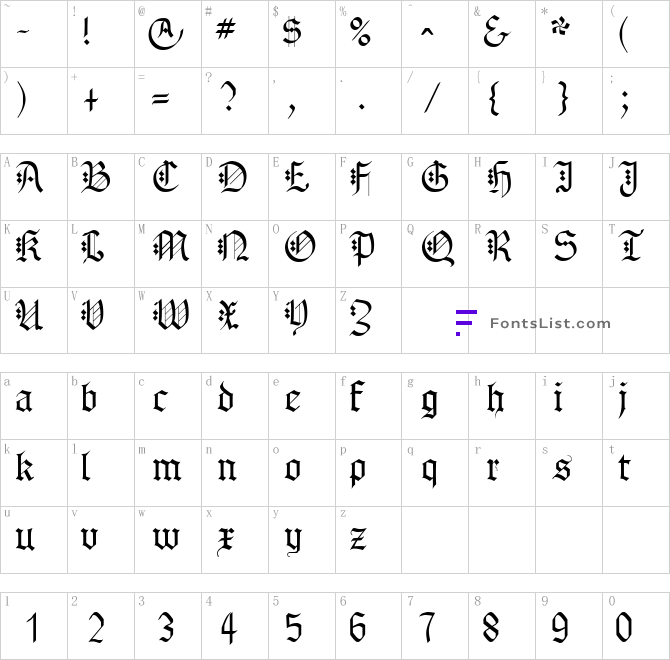
- Font Name:Albert
- Subfamily:Betenbuch
- Full Name:Albert Betenbuch
Albert-Betenbuch.ttf is a very beautiful artistic font, Albert-Betenbuch.ttf is widely used in the design and printing of various books and pictures,Albert-Betenbuch.ttf has a strong visual impact,Albert-Betenbuch.ttf is a commonly used font in newspapers, magazines and books, and is used in posters, e-commerce Poster design, store design, logo design, font design and other fields.Albert-Betenbuch.